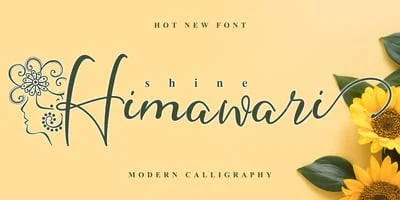
Shine Himawari Font
Shine Himawari Font is ideal for organic sunflower oil brands, Japanese garden centers, natural wellness products, spring festival celebrations, eco-friendly beauty companies, botanical illustration studios, and sunshine-themed lifestyle brands. This radiant typeface captures the joyful essence of sunflowers and Japanese natural beauty, bringing warm sunshine energy and organic charm to any design project celebrating nature and positivity.
What makes Shine Himawari Font exciting is its delightful combination of sunflower radiance and Japanese aesthetic philosophy that perfectly embodies the harmony between natural beauty and cultural elegance. The font features flowing letterforms with petal-inspired curves and luminous details that evoke both the golden warmth of sunflower fields and the refined simplicity of Japanese design. Its cheerful character creates instant emotional warmth while maintaining excellent readability for both organic product packaging and cultural event materials.
The Shine Himawari Font family includes regular and bold weights with complementary light variations and botanical ornamental elements. The character set features floral ligatures, Japanese symbols, sunflower alternates, and nature decorative accents that enhance the font's organic appeal. Extended character support includes hiragana characters and botanical symbols for authentic Japanese nature-themed and international organic applications.
Whether you're designing natural product brands, creating Japanese cultural materials, or developing sunshine lifestyle content, Shine Himawari Font provides exceptional warmth and versatility. This luminous typeface transforms ordinary text into joyful natural experiences that celebrate botanical beauty while establishing memorable brand recognition in competitive organic wellness and Japanese culture marketplaces.